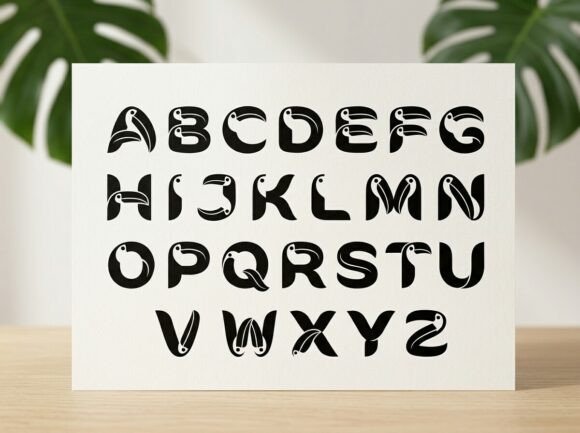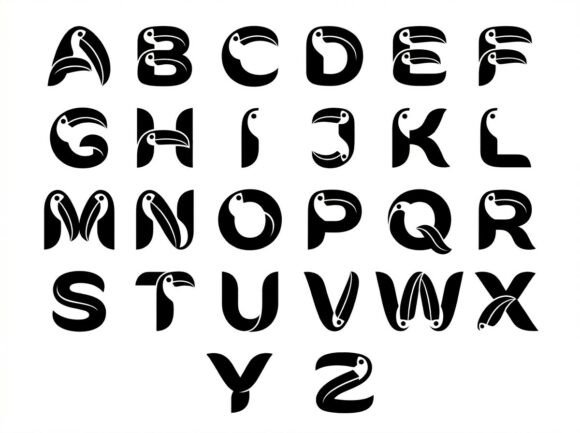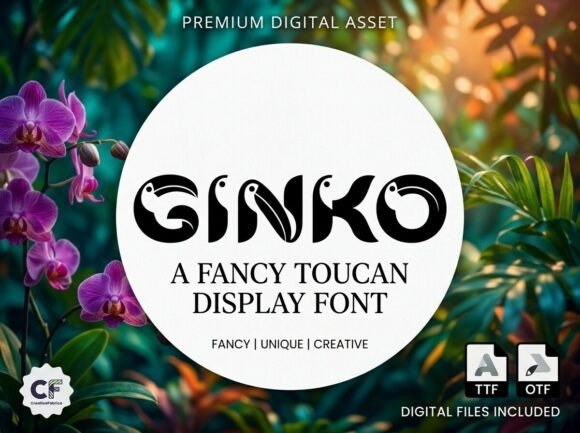
Escape to the Tropics with Ginko Font: A Unique Display Typeface Inspired by Nature
Are you looking for a font that can transport your designs to a tropical paradise? Look no further than Ginko, a stunning display font that combines bold, geometric letterforms with the exotic beauty of the rainforest. This artistic typeface is inspired by the iconic silhouettes of toucans, masterfully integrating their profiles into every character. In this article, we’ll dive into the world of Ginko Font, exploring its features, uses, and the creative genius behind its design.
The Inspiration Behind Ginko Font
Ginko Font is a creative expression of the beauty and wonder of the rainforest. Its designer drew inspiration from the vibrant colors, organic curves, and playful elegance of the tropical ecosystem. The result is a font that embodies the carefree spirit of a summer festival or a boutique juice brand. By incorporating the silhouettes of toucans into its letterforms, Ginko Font creates a unique visual identity that’s both eye-catching and memorable.
Design Features of Ginko Font
Ginko Font boasts a range of design features that make it perfect for tropical-themed branding, eco-tourism logos, vibrant product packaging, and creative editorial headers. Some of its key features include:
- Bold, geometric letterforms: Ginko Font’s letterforms are bold, geometric, and perfectly suited for display purposes.
- Integration of toucan silhouettes: The iconic beaks and avian profiles of toucans are cleverly integrated into every character, creating a unique visual identity.
- Negative space and organic curves: The use of negative space and organic curves adds a touch of playfulness and elegance to the font.
Uses of Ginko Font
Ginko Font is an incredibly versatile typeface that can be used in a wide range of design applications, including:
- Tropical-themed branding: Ginko Font is perfect for creating eye-catching logos and visual identities for tropical brands.
- Eco-tourism logos: The font’s eco-friendly and nature-inspired vibe makes it ideal for eco-tourism logos and travel brands.
- Vibrant product packaging: Ginko Font adds a pop of color and playfulness to product packaging, making it perfect for brands that want to stand out.
- Creative editorial headers: The font’s bold, geometric letterforms make it perfect for creative editorial headers and titles.
Tips for Using Ginko Font
To get the most out of Ginko Font, here are some tips to keep in mind:
- Experiment with colors: Ginko Font looks amazing in bright, tropical colors. Experiment with different color combinations to find the perfect fit for your brand.
- Play with textures: Adding textures and patterns to your design can enhance the natural, organic feel of Ginko Font.
- Mix and match with other fonts: Ginko Font pairs well with a range of other fonts. Experiment with different combinations to find the perfect match for your design.
Ginko Font is a unique and creative display typeface that’s perfect for designers and crafters looking to add a touch of tropical elegance to their designs. With its bold, geometric letterforms, integration of toucan silhouettes, and clever use of negative space and organic curves, Ginko Font is sure to make a statement. Whether you’re designing for a summer festival or a boutique juice brand, this font delivers a sense of playful elegance and handcrafted, nature-inspired charm to your visual identity.